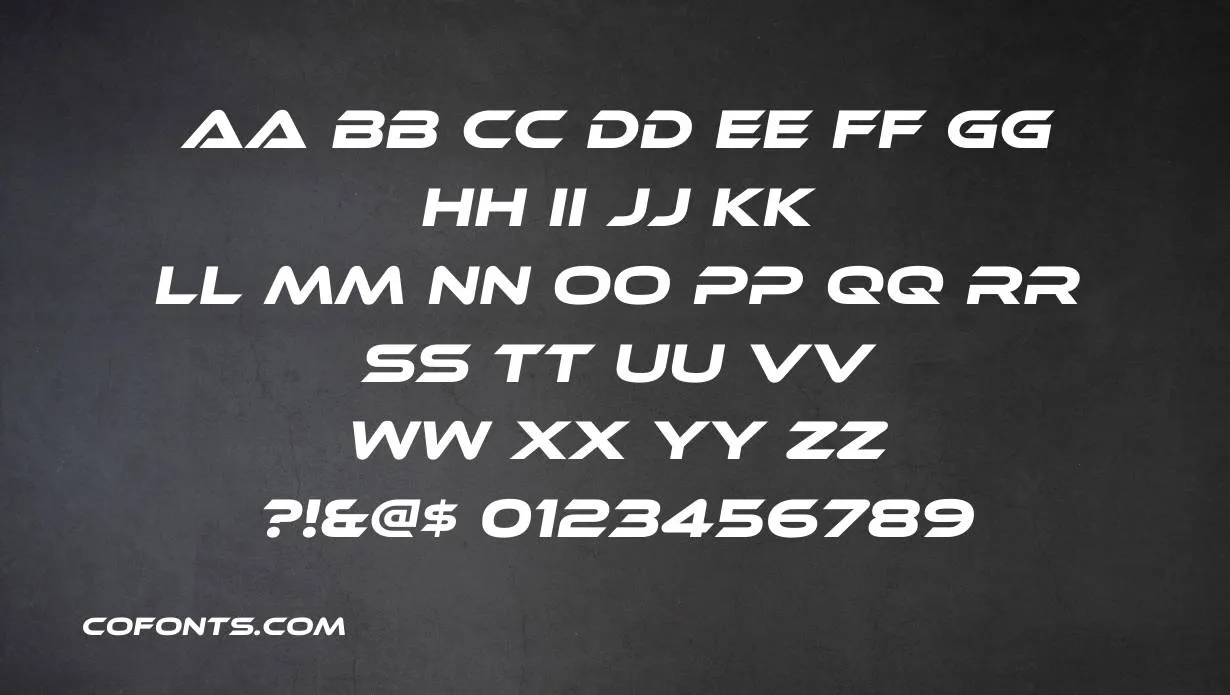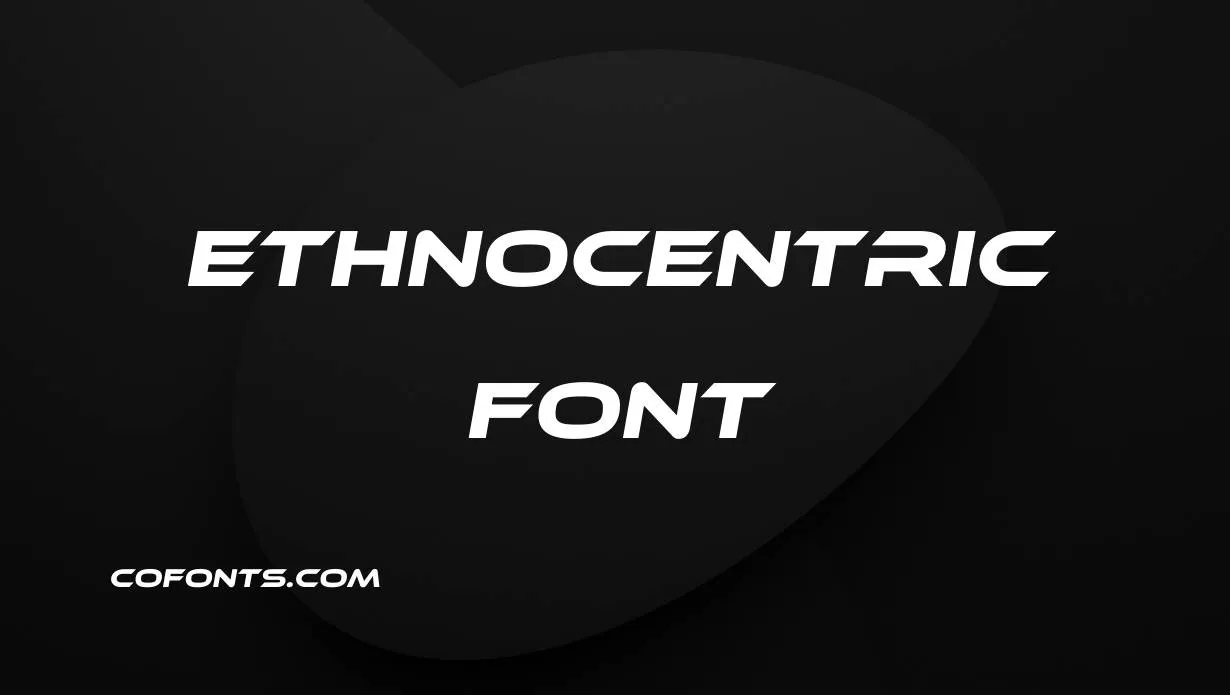
About Ethnocentric Font Free Download
Ethnocentric Font Free Download is a modern typeface available in multiple variants and styles.
- Ethnocentric Font Regular
- Ethnocentric Font Bold
- Ethnocentric Font Italic